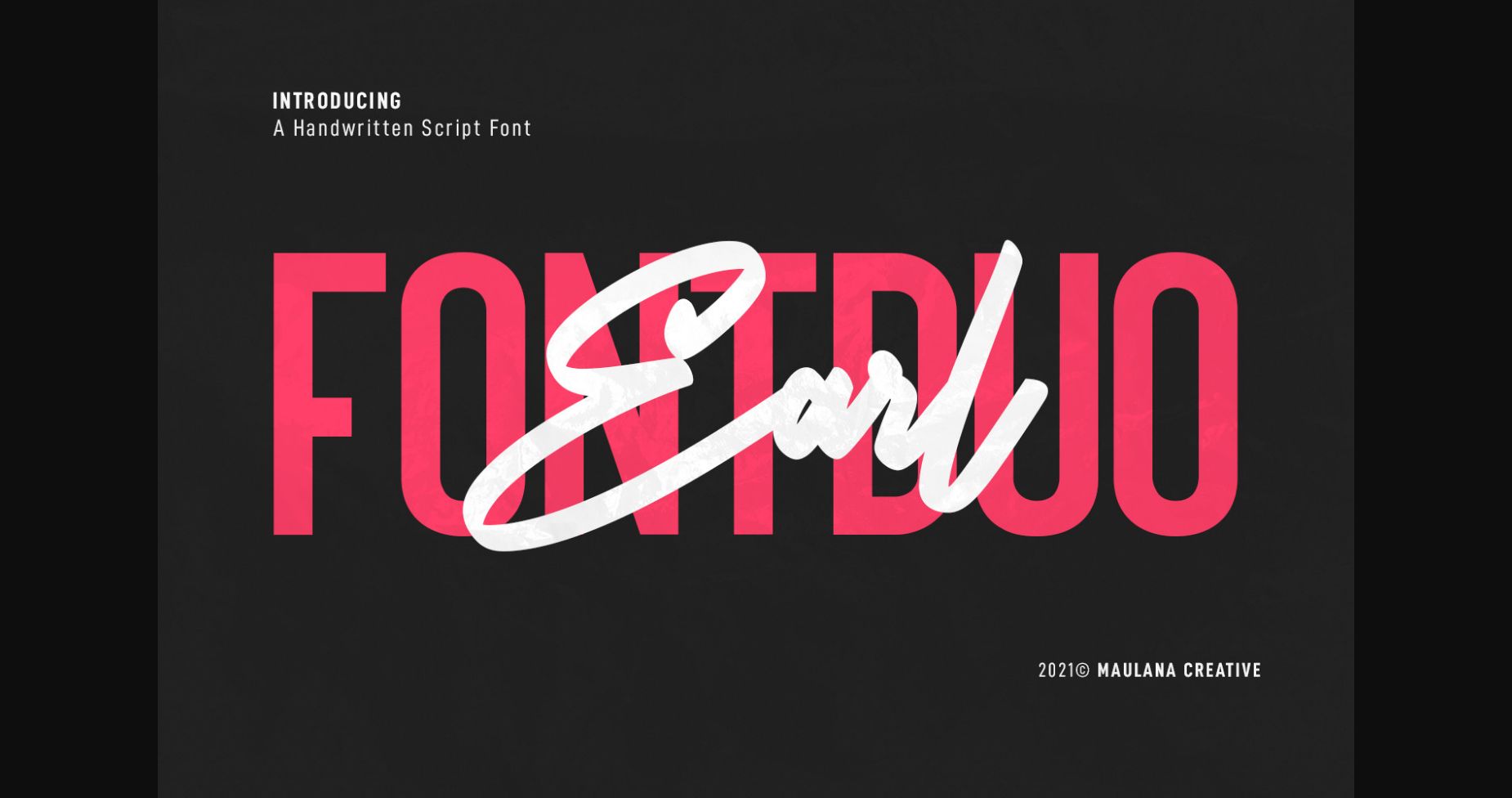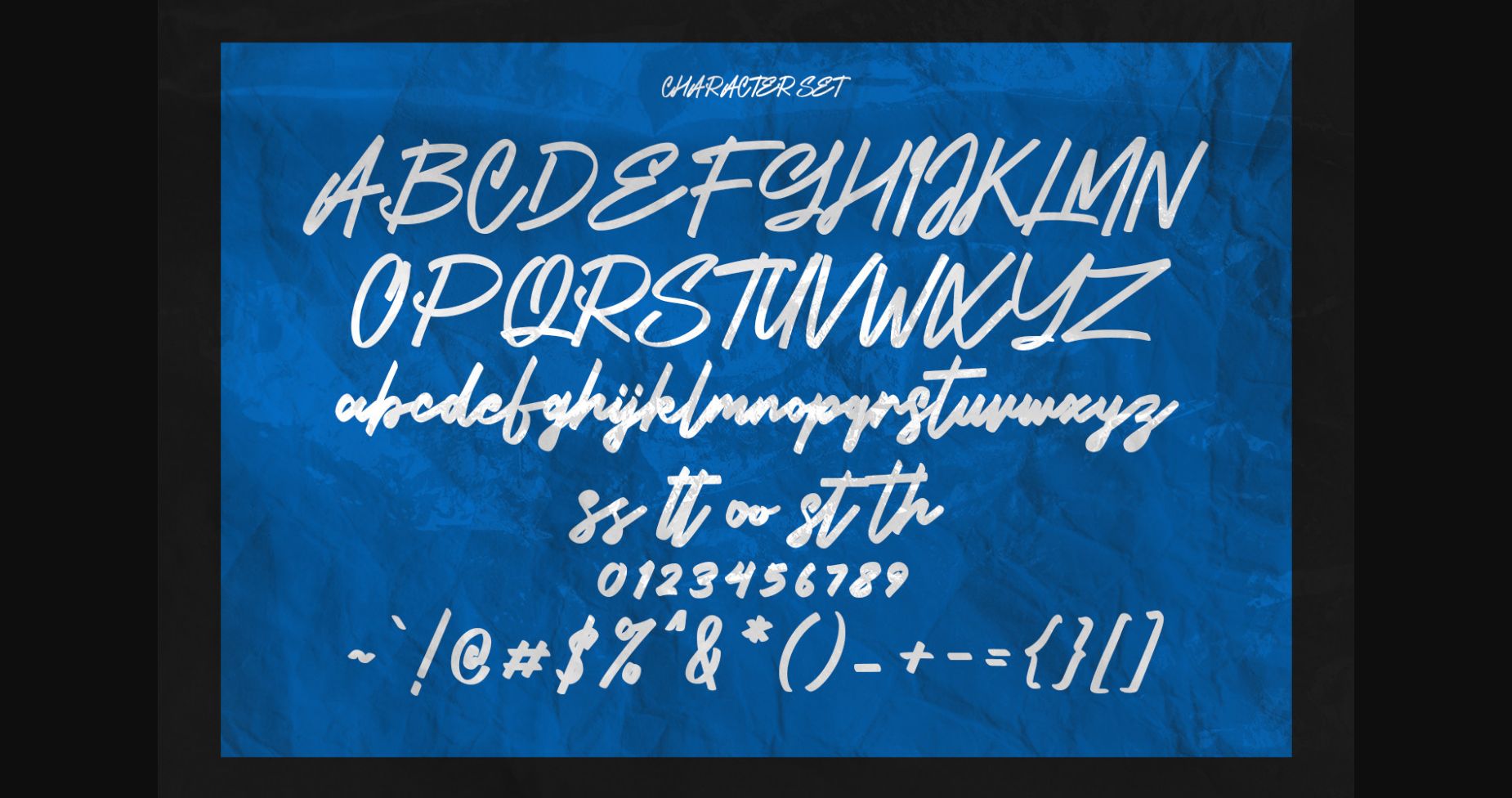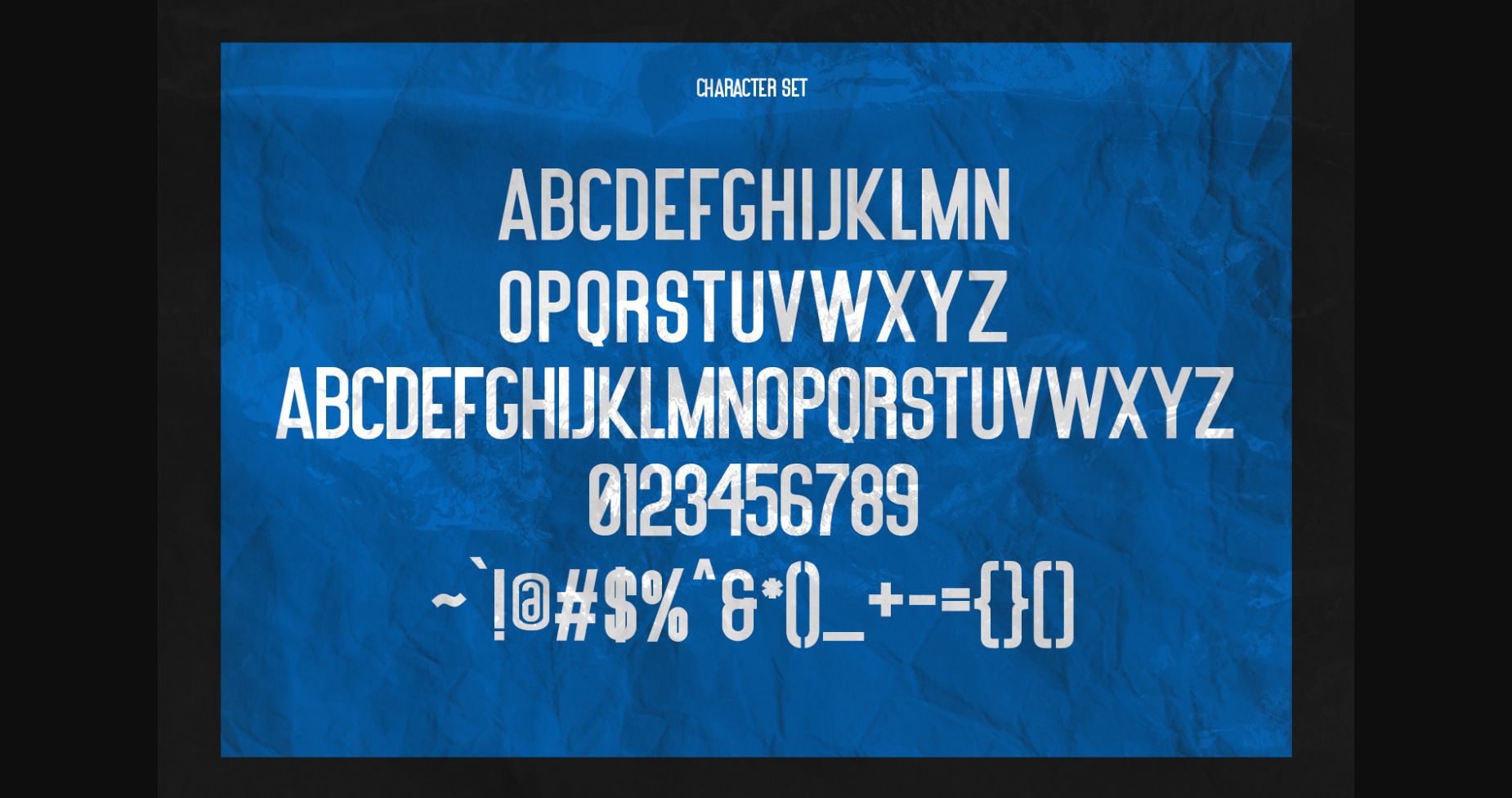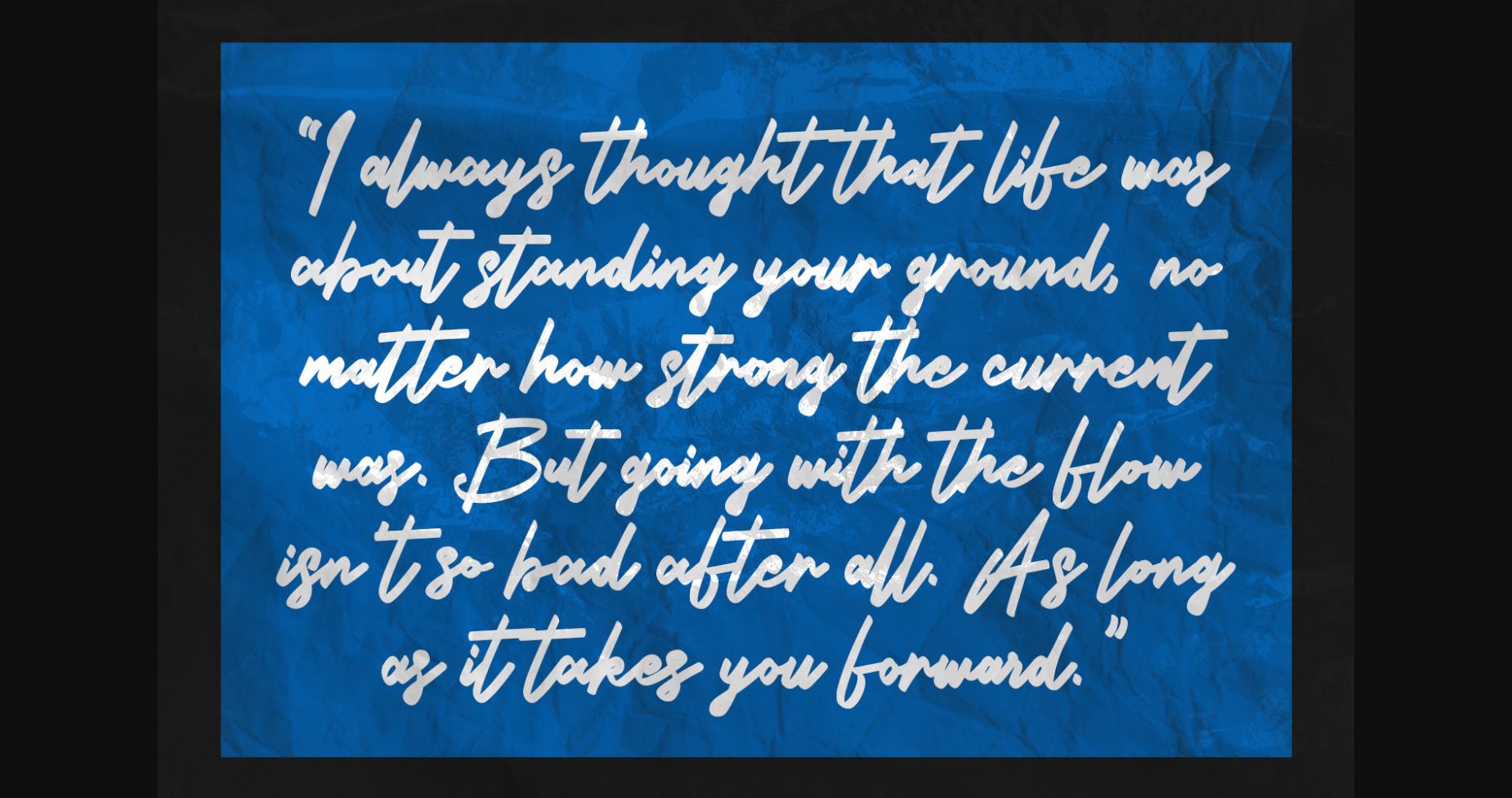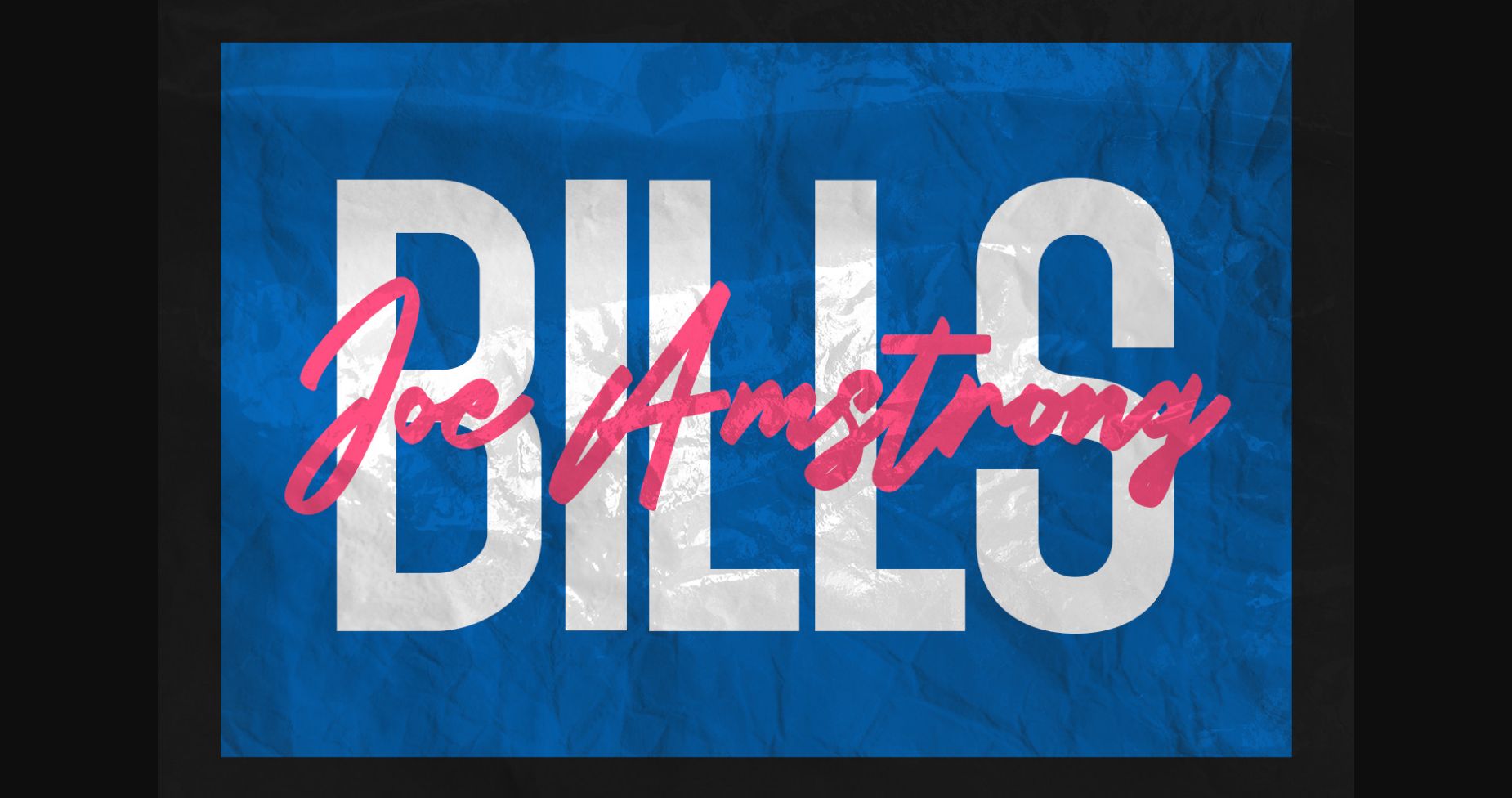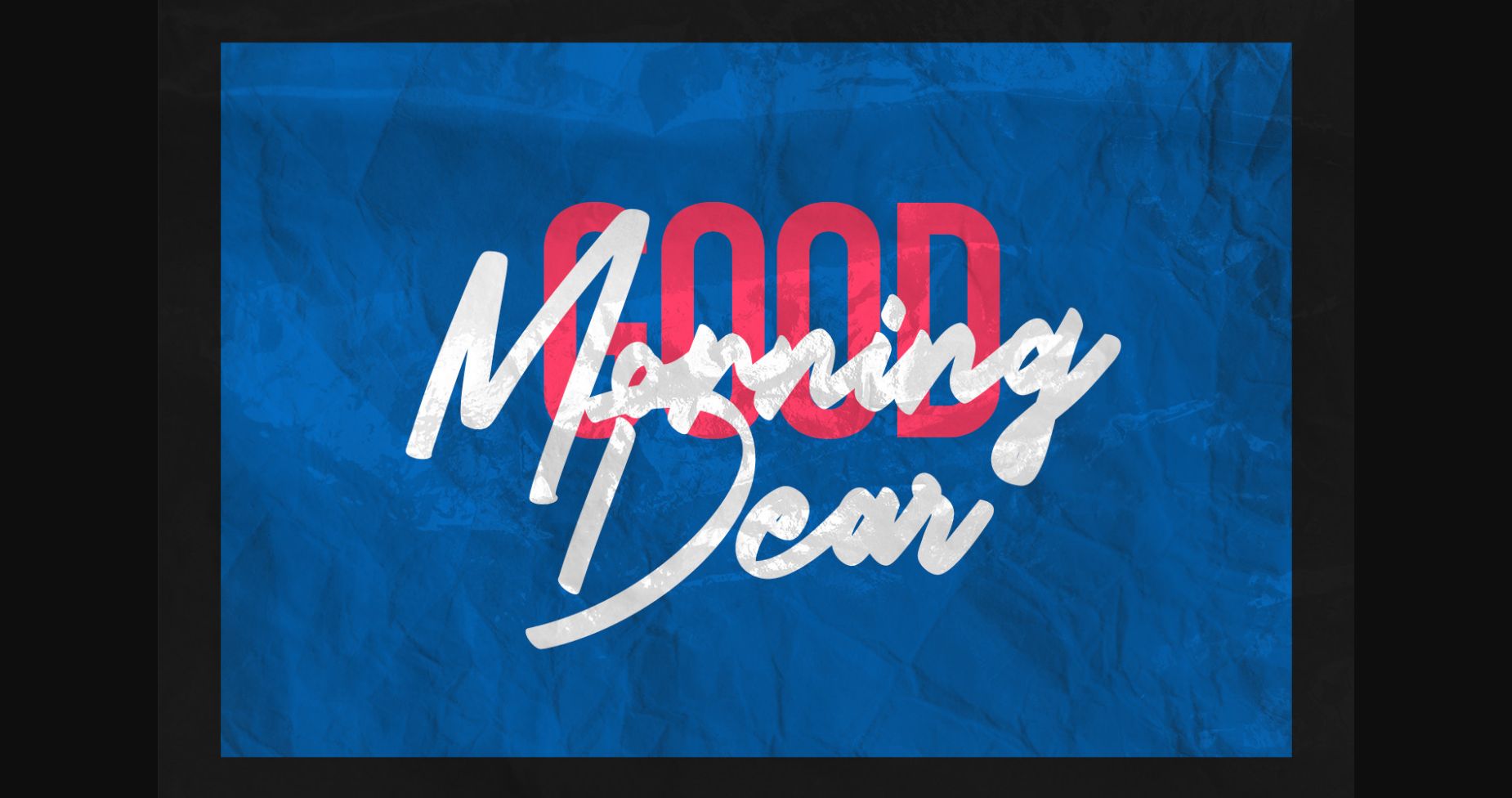
Earl Font
About Earl Font
Earl is a duo handwritten and sans serif font perfect for logo design, social media posts, movie and book titles, and many more! Make stunning work with Earl duo font!